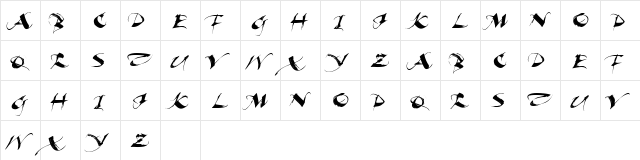
Beautiful Ink Regular Font Preview
Beautiful Ink Regular
Design Context for Beautiful Ink Typeface
Beautiful Ink is a composed and adaptable typeface that performs quietly and consistently across a wide range of design contexts.